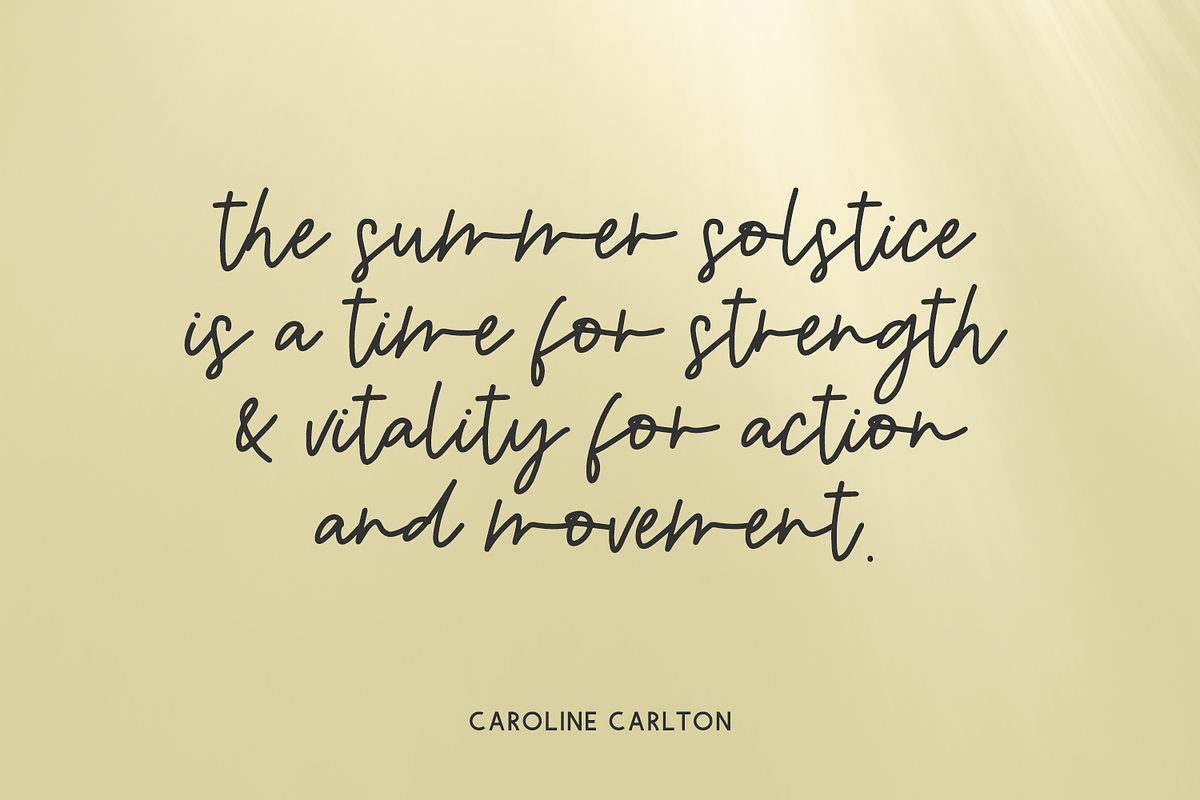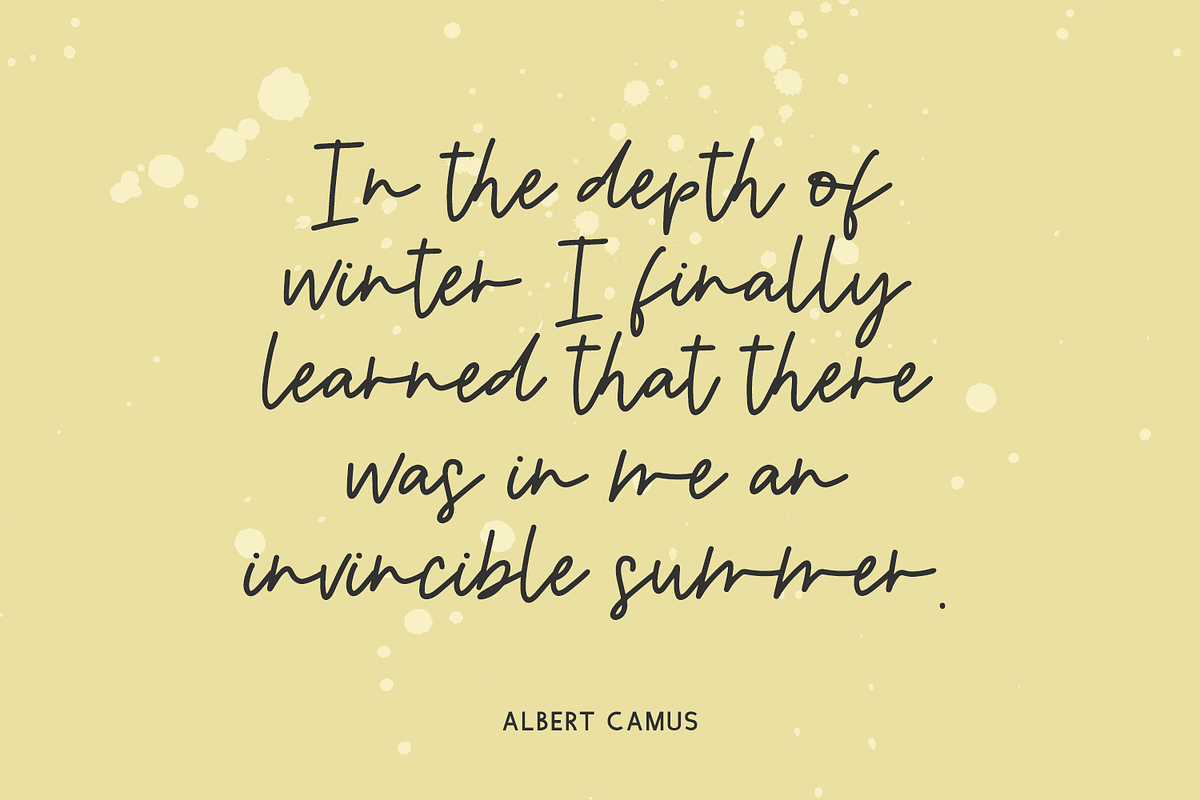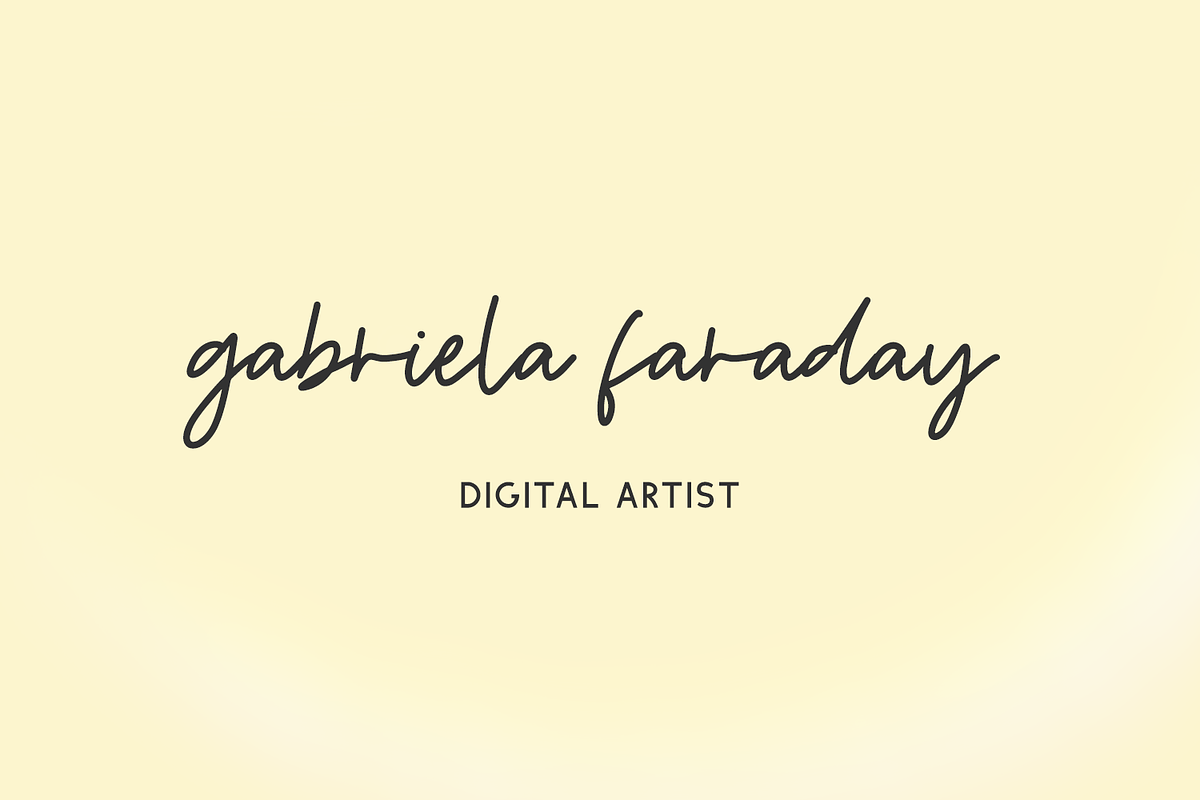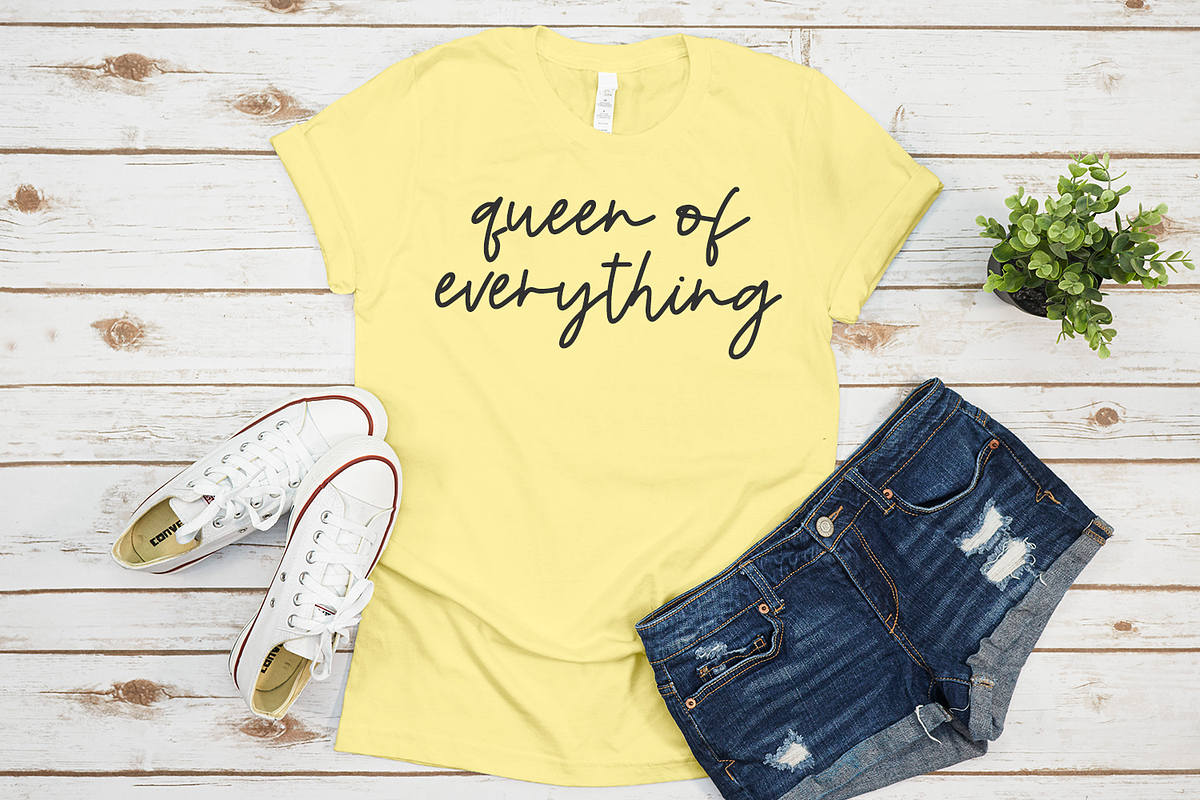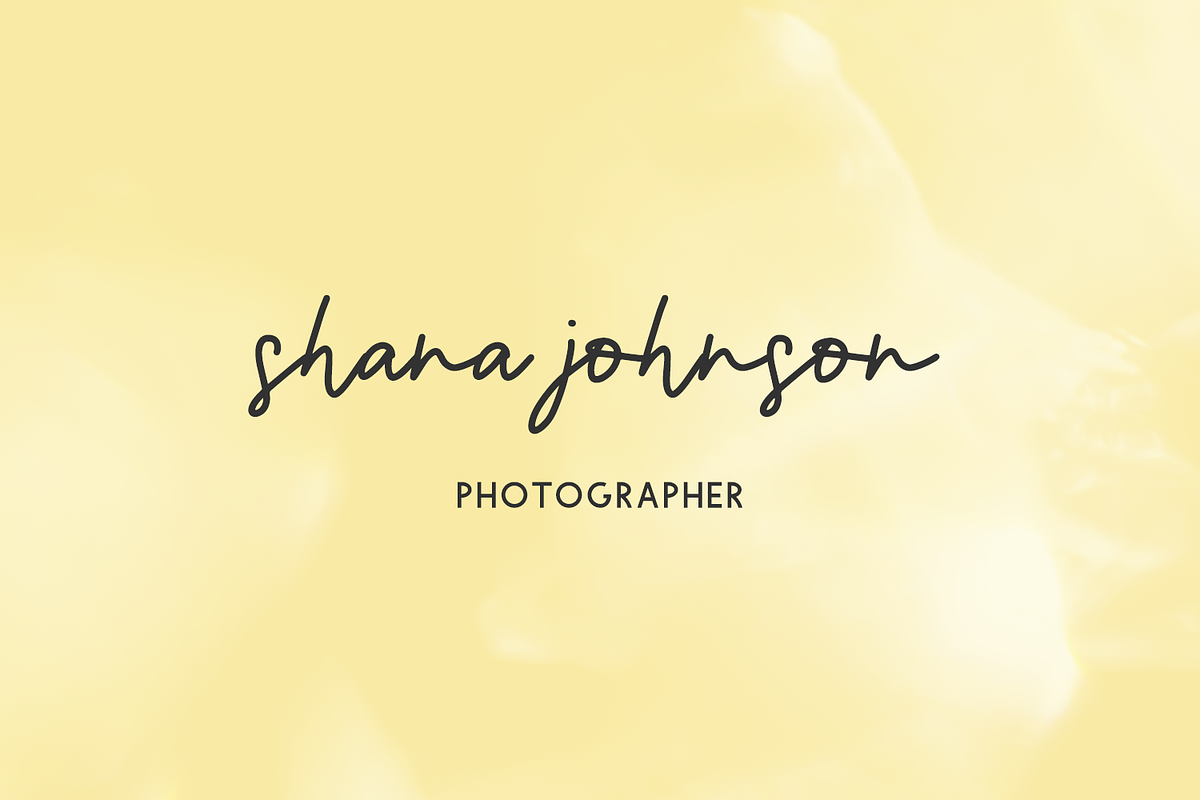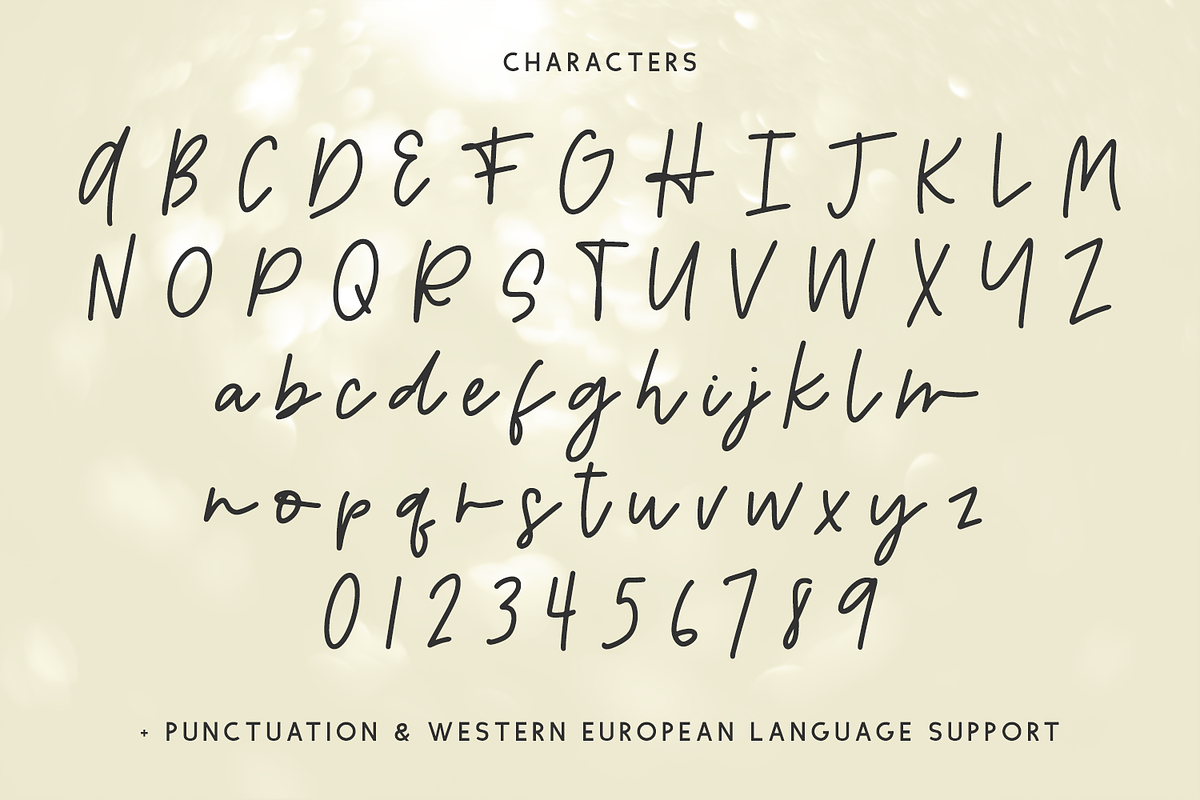
Solstice Script
Introducing Solstice Script, a modern handwriting font.
Solstice Script is best for:
- modern projects with your Cricut or Silhouette machine, or your SVG design business
- farmhouse decor and crafts
- logos + branding
- digital planners & apps like Goodnotes
- website design + website accents, blog design
- clean print design, like magazines + flyers
- header elements that need handwritten touch
- quote graphics for social media
- graphic tee shirt design & other apparel
Solstice includes:
- full upper + lowercase characters
- numbers + punctuation
- Western European Language Support